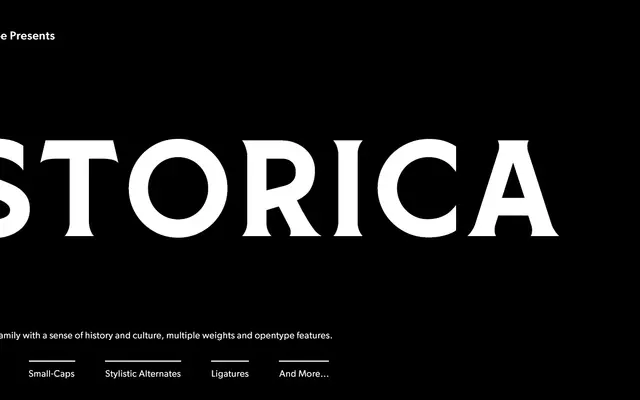
Storica
A roman display serif in seven weights with textured Heavy Rough and Heavy Hand variants aimed at branding and editorial work.
Built around roman-style serifs that evoke craft and history, Storica runs from Light to Heavy across seven standard weights, with two additional variants adding a roughened or hand-drawn quality for more rustic applications. OpenType features include stylistic alternates, small caps, old-style figures and discretionary ligatures, giving designers enough variation to build typographic layouts without relying on additional faces. The foundry positions it for beverage branding, posters and magazine work where a heritage feel is required.
Storica carries roman-style serifs with a historical character intended for large-scale display use; the Heavy Rough and Heavy Hand variants push it firmly into expressive display territory rather than text setting.